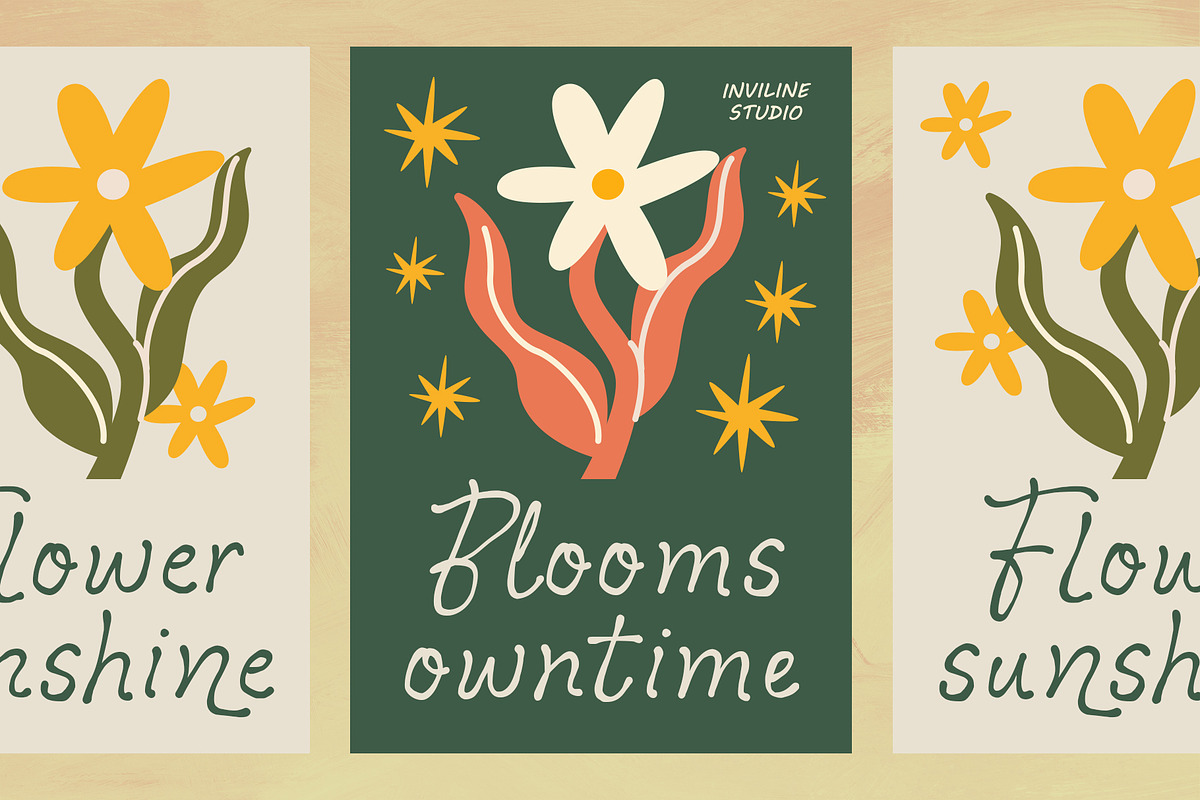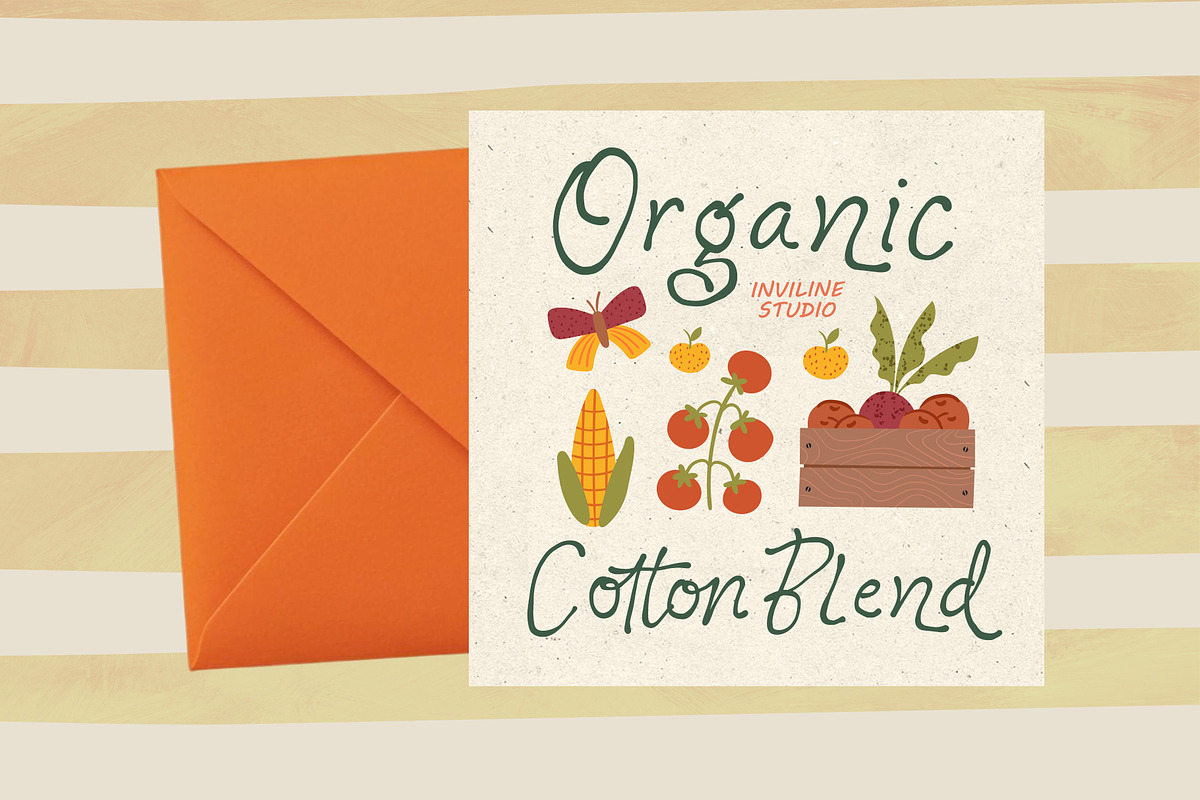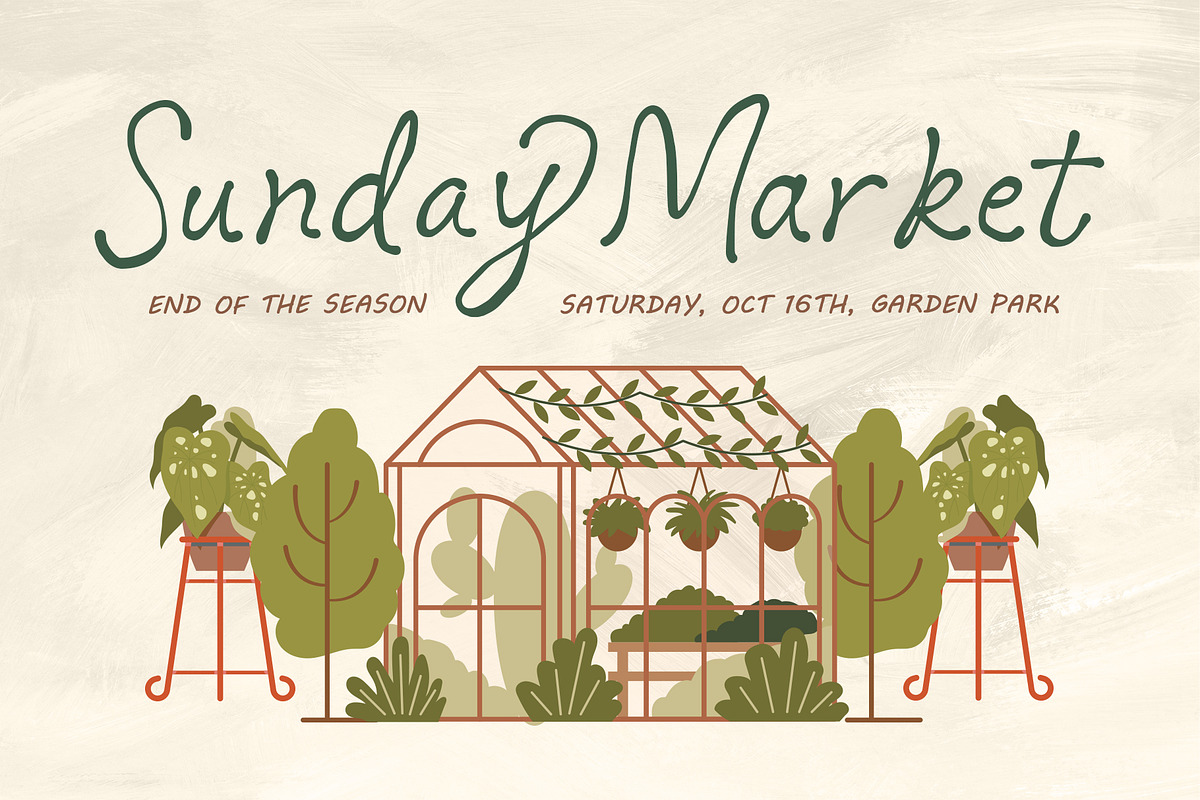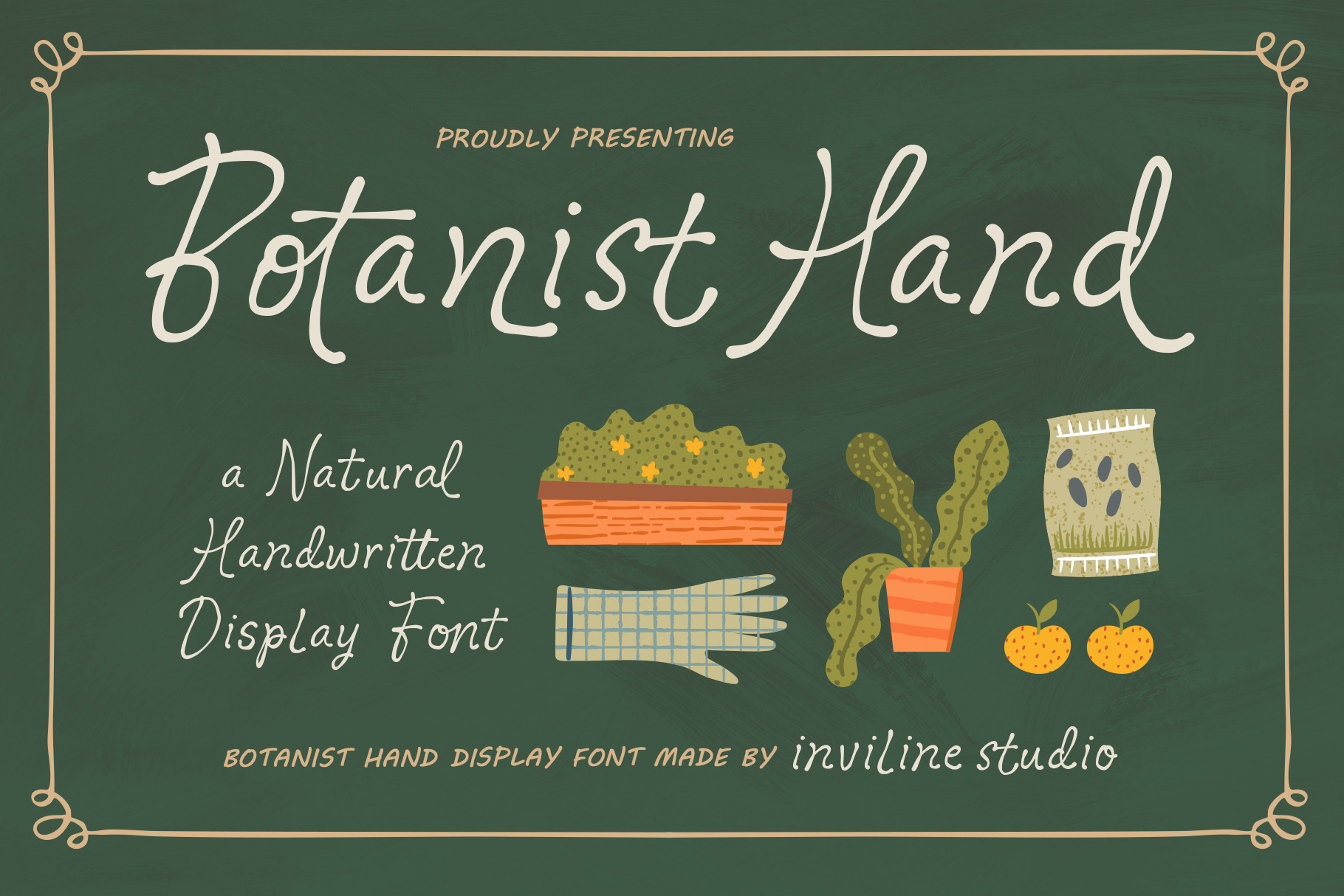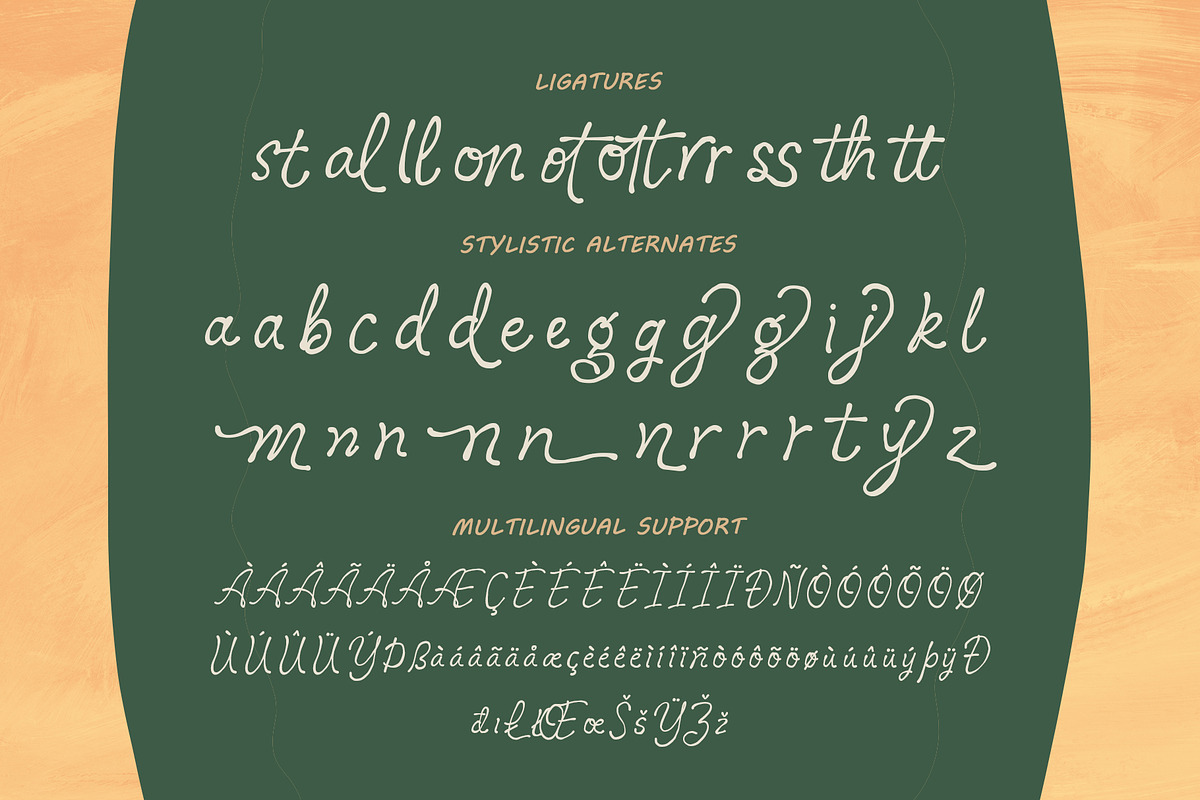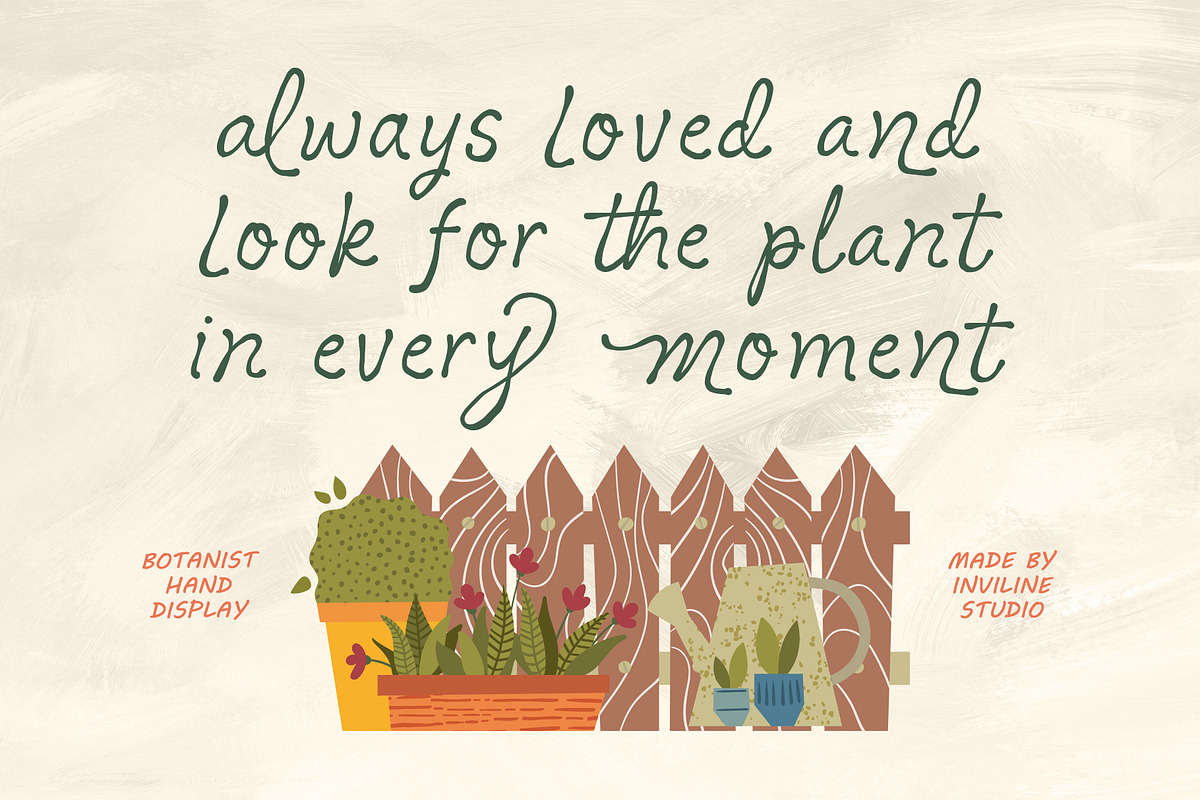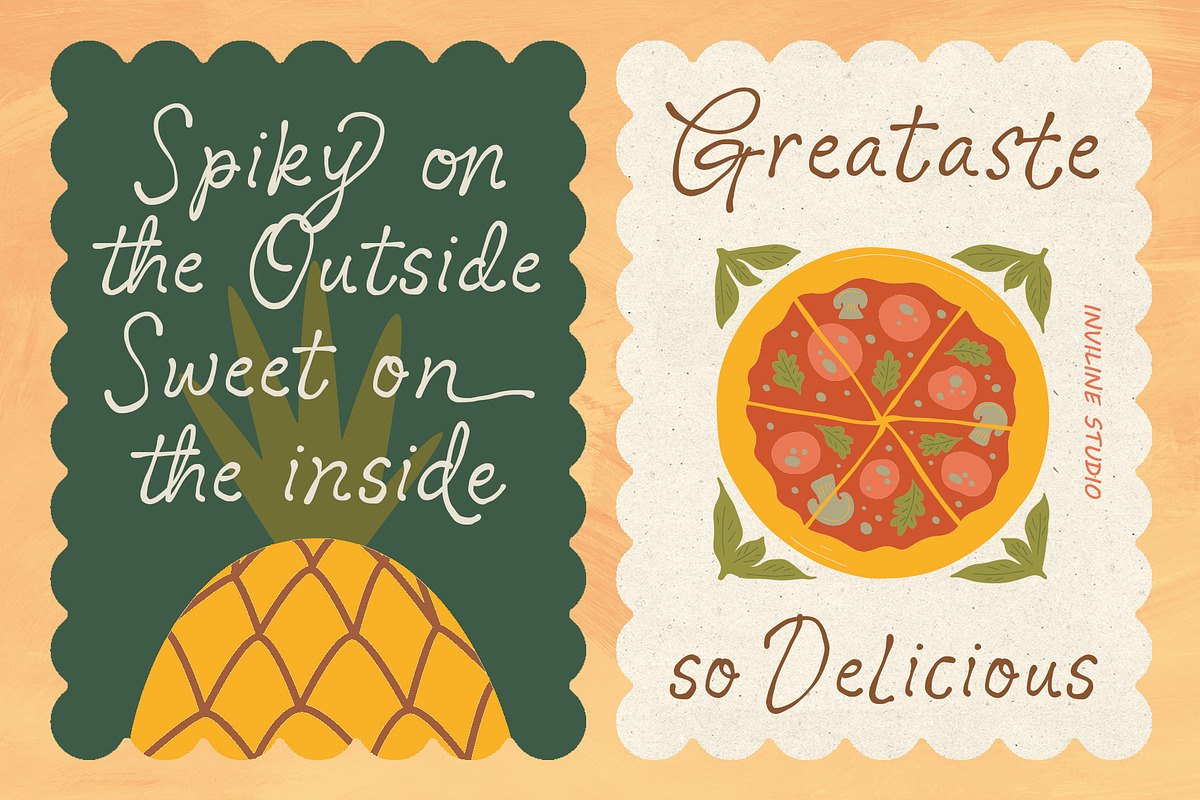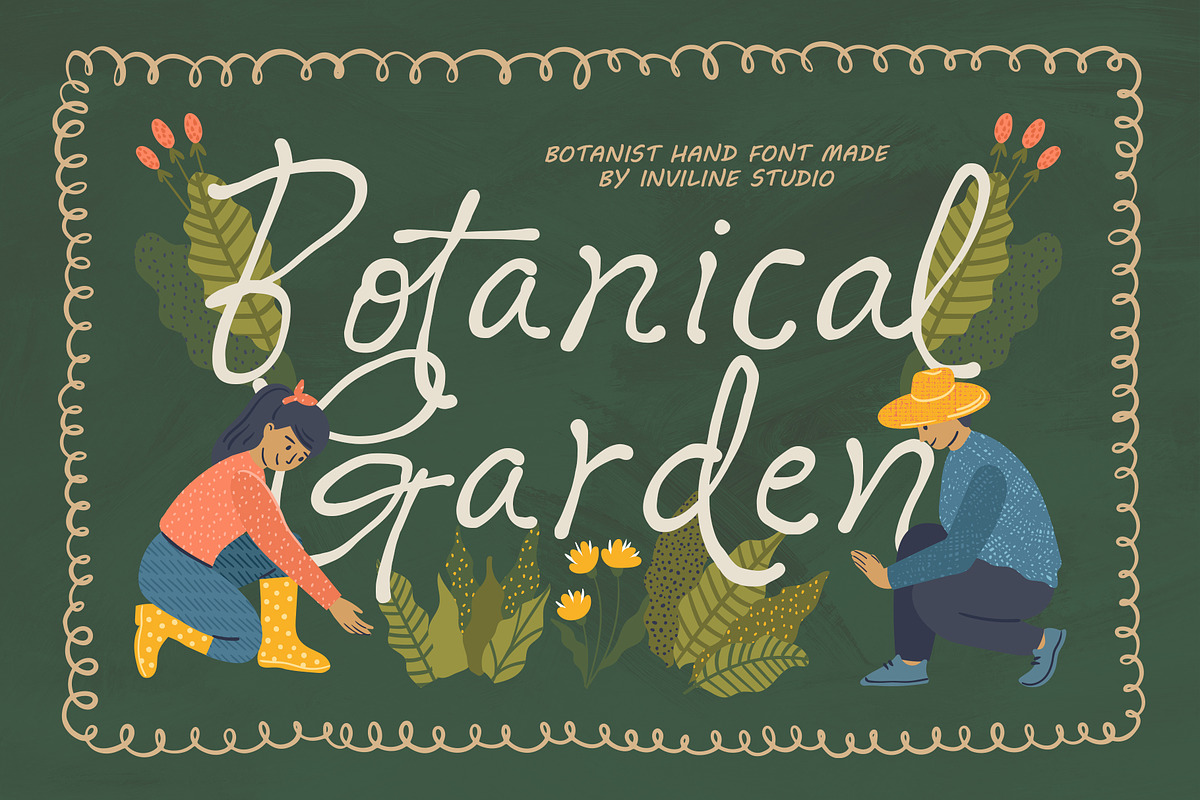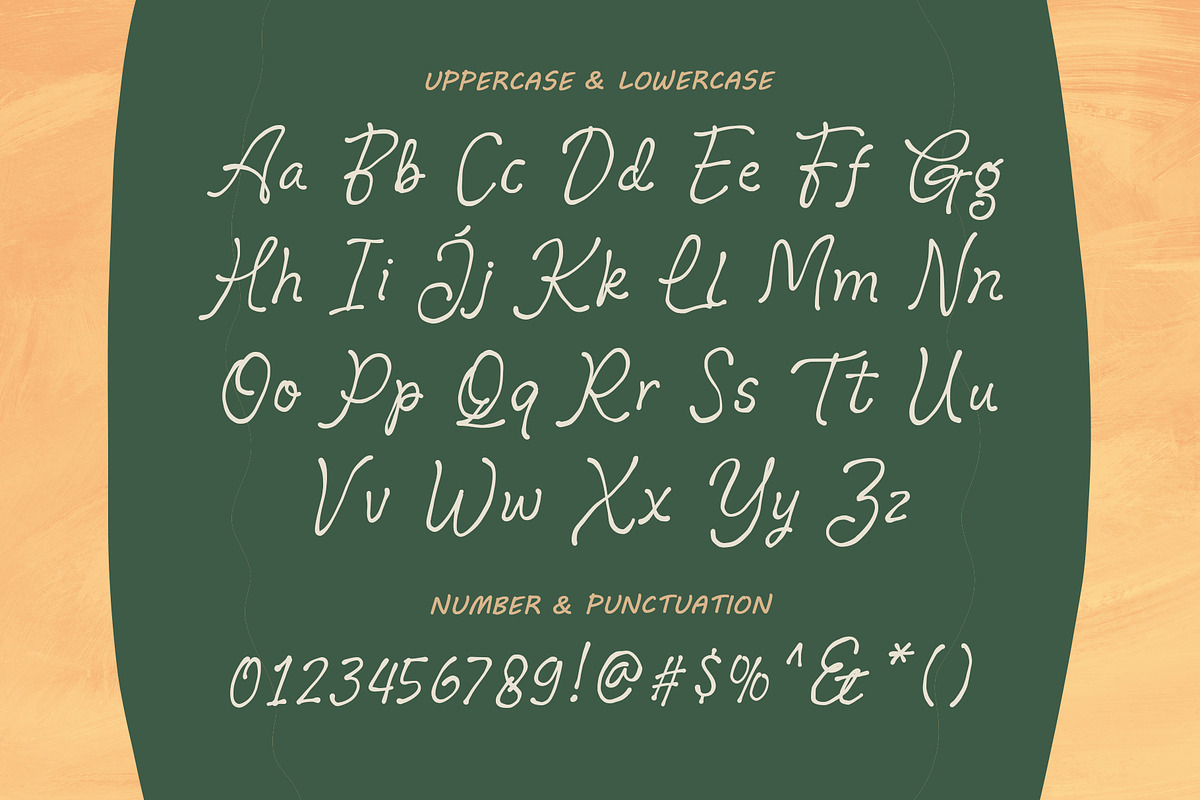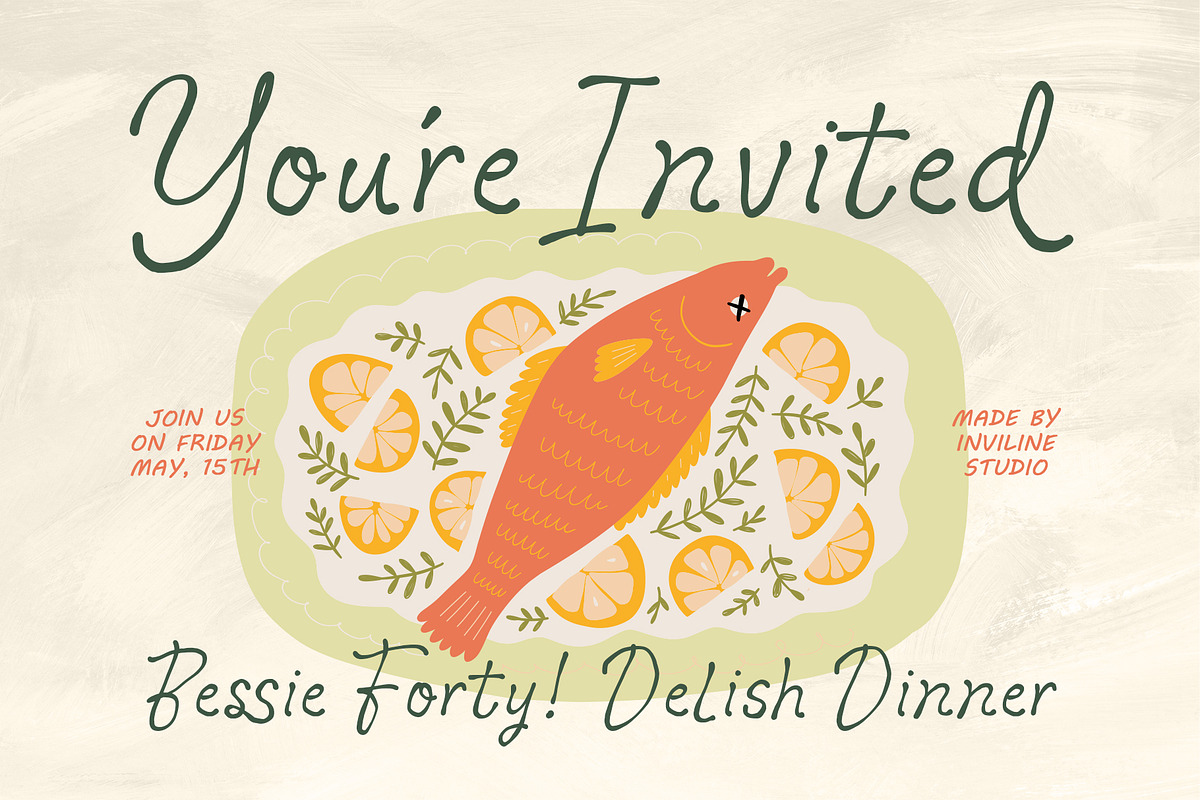
Botanist Hand - Display Font
Botanist Hand — Organic Handwritten Display Font
Botanist Hand is a warm handwritten display font inspired by botanical gardens, farmers markets, organic packaging, and relaxed lifestyle design. Its soft strokes and naturally imperfect forms bring a friendly, authentic handmade touch to every project.
Perfect for botanical branding, organic packaging, café menus, garden shops, labels, invitations, and handmade products.
Natural handwritten display style
Organic & handmade character
Soft, irregular strokes
Uppercase & lowercase characters
Great for logos, packaging & headlines
Ideal For
Botanical & garden branding
Organic food packaging
Farmers market designs
Café & tea branding
Product labels
Handmade products
Invitations & stationery
Lifestyle branding
Design Tips
Botanist Hand works best at medium to large sizes. Pair it with a clean serif or sans serif for a balanced organic look. Combine with muted greens, warm cream, terracotta, botanical illustrations, and paper textures for a natural aesthetic.